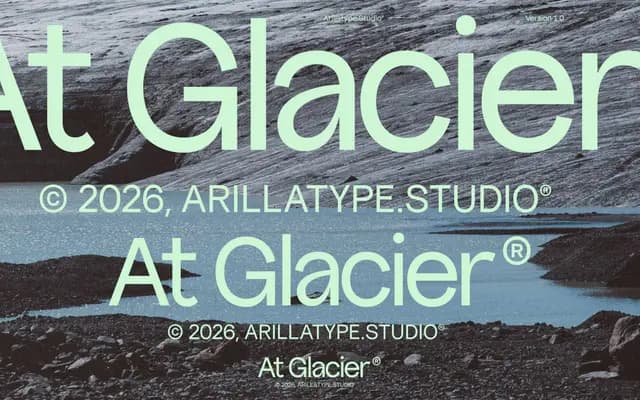
At Glacier
Arillatype · Omar Careaga · 2026
At Glacier specimen from Arillatype
A single-weight display grotesque by Omar Careaga, distinguished by a broad set of stylistic alternates, folk and avant character sets, and over 1,000 glyphs including arrows and dingbats.
Designed by graphic designer and printer Omar Careaga, At Glacier arrives as a single Regular style with a strong, elemental grotesque character. Its 1,051 glyphs cover nine stylistic sets, two character variants, discretionary ligatures, multiple figure styles and a suite of arrows and dingbats, making it an unusually complete single-font toolkit. The range of alternate sets, from Folk to Avant to Loop, gives it considerable expressive range within one weight.
The foundry describes it as a 'natural grotty' (grotesque), with bold structural features and elemental character consistent with a display-weight grotesque sans-serif.